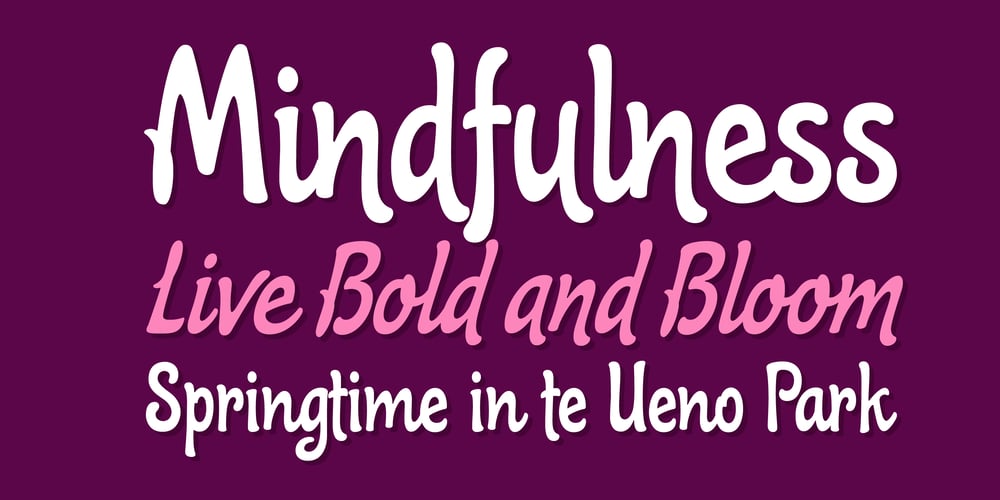
Primavera Font Family was designed by Alejandro Paul, Angel Koziupa and published by Sudtipos. Primavera contains 2 styles and family package options. Primavera is a fresh and spirited take on casual handwriting. The usual playfulness and expertise of Angel Koziupa’s forms, along with the smooth, crisp outlines of Alejandro Paul, provide a humorous and lively typeface in two styles that fit perfectly on food packaging labels, greeting cards, journals or wherever a design needs to convey freshness, young spirit, and a cool spring breeze.